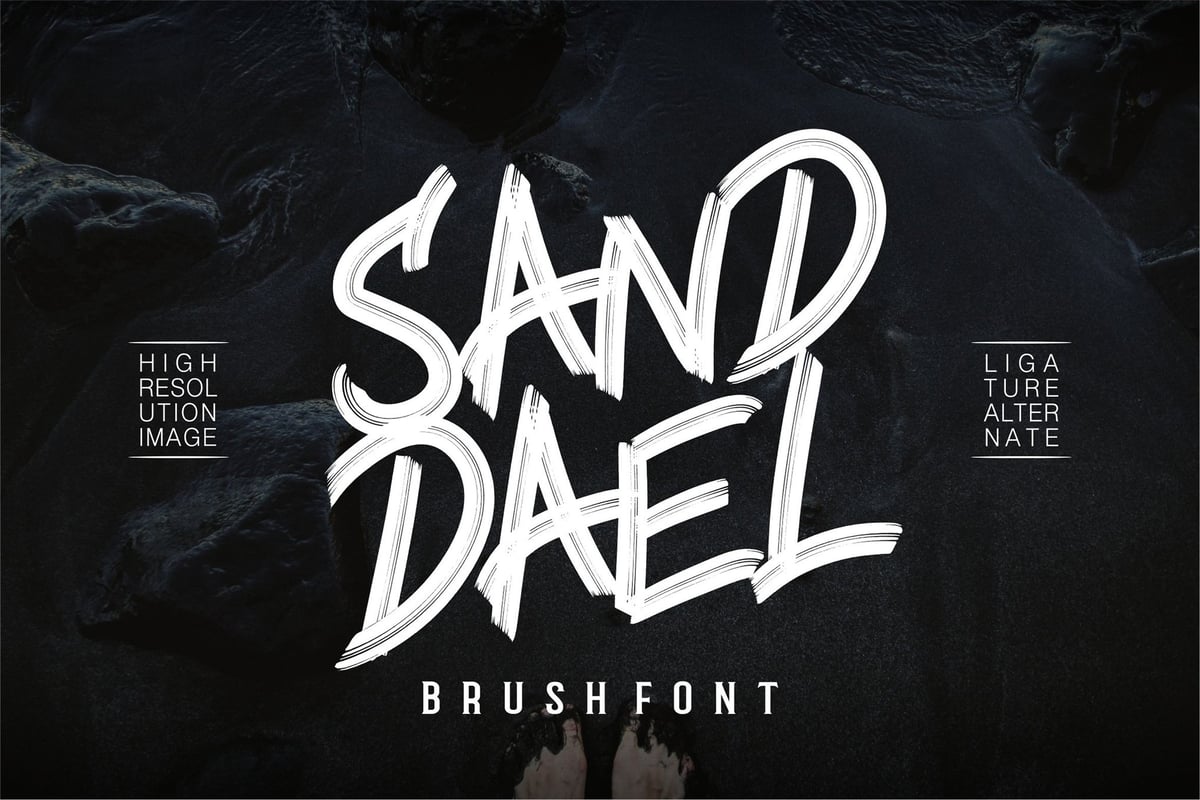
Sand Dael - Brush Font
Sand Dael is a raw, expressive brush font that brings bold calligraphy energy to any creative project.
With its hand-painted brush strokes and flowing calligraphy style, Sand Dael is a versatile typeface built for designers who want authentic, textured lettering. It's equally at home on wedding invitations, branded packaging, editorial posters, business cards, and inspirational quotes.
The font includes a rich set of OpenType features, giving you full creative control over your typography:
- Stylistic Sets
- Stylistic Alternates
- Contextual Alternates
- Swash characters
- Ligatures
- Alternates and Ligatures
- Multilingual support